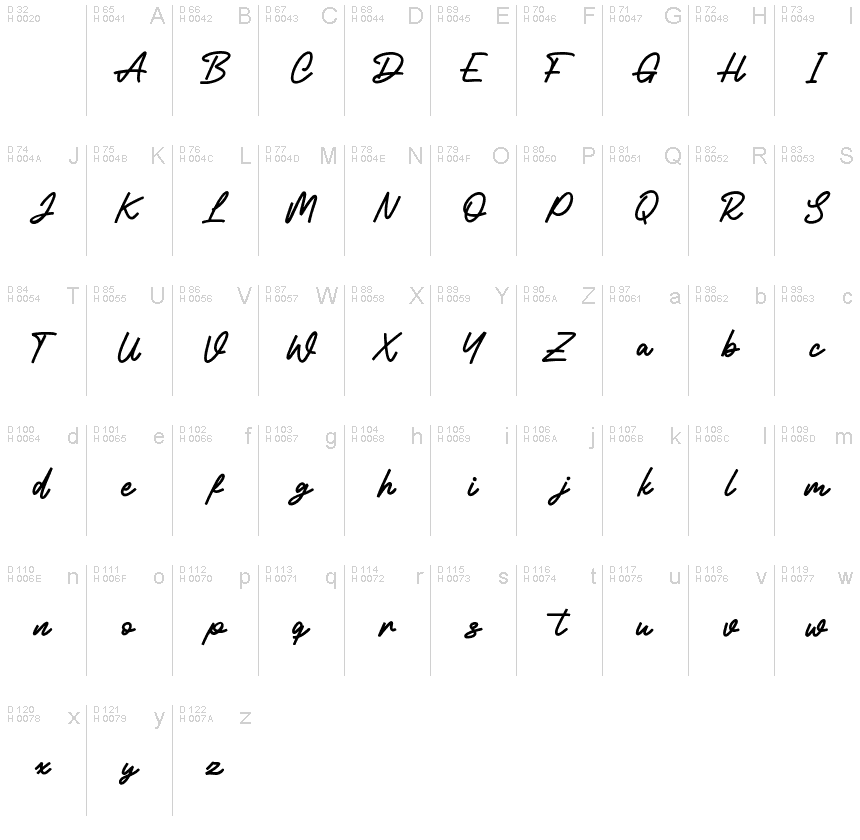
Golfwinks Free Regular
Golfwinks is a playful and stylish handwritten font designed by Maulana Creative. Its semi-light weight adds a touch of elegance to any project. With its bold contrast stroke and charming ligatures, Golfwinks will bring creativity to your work.
This versatile font supports over 100 languages, making it perfect for logo design, social media posts, movie titles, book titles, and even long text letters. Use it as your primary font or pair it with a sans or serif font for secondary text.
No matter the project, Golfwinks will make a stunning addition to your design toolkit.